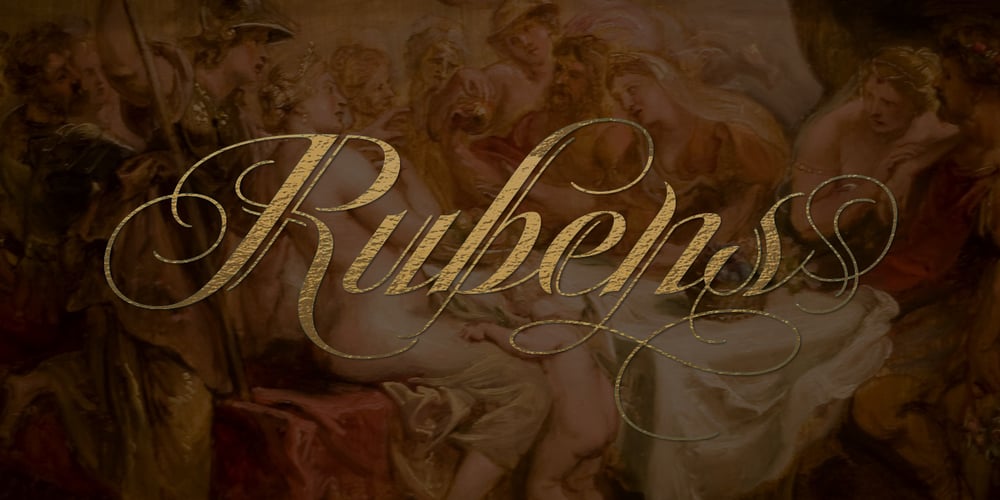
Heraldica Script Font Family was designed by Alejandro Paul, Angel Koziupa and published by Sudtipos. Heraldica Script contains 1 styles and family package options. Ornamented scripts are a Koziupa/Paul specialty, and Heraldica is one of their most expressive. It attains the very definition of deluxe by conjoining the classic thin-and-thick script treatment with thin-only counterpart strokes, then it goes the extra mile with a varied complement of overlaid flourishes. The usual assortment of multiple alternates and ending forms pushes it even further in class and versatility. Monograms, logos, jewelry packaging and book covers are only a few of the possibilities with such a high-end script. Crafted Koziupa and digitized by Ale Paul.